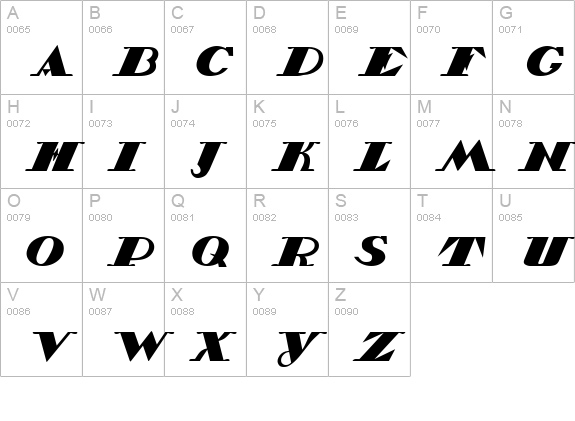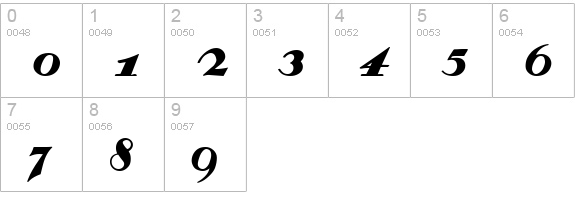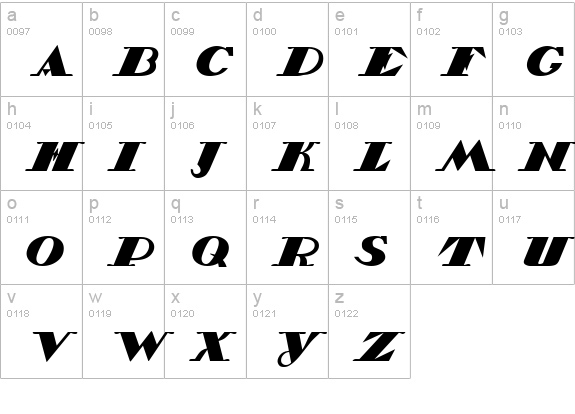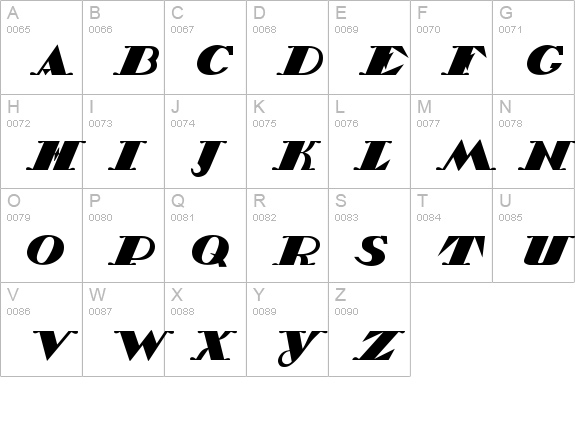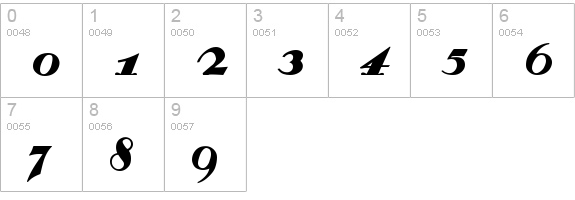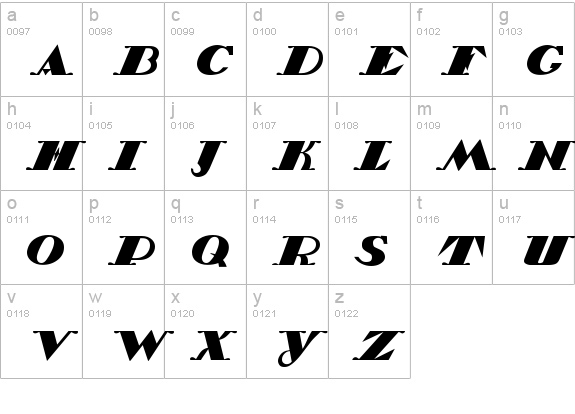
Belukha Capital Font Details
Belukha Capital font is a stylish and sophisticated typeface that exudes elegance and professionalism. With its clean lines and sharp edges, this font is perfect for creating impactful designs that demand attention. Its sleek and modern look makes it versatile for a wide range of projects, from branding to editorial design. The best part? Belukha Capital font is completely free to download at FontsMarket.com. Whether you're a designer looking for a new go-to font or just someone who appreciates high-quality typography, this font is definitely worth adding to your collection. Don't miss out on the opportunity to enhance your projects with this stunning typeface – download Belukha Capital font today and elevate your designs to the next level.